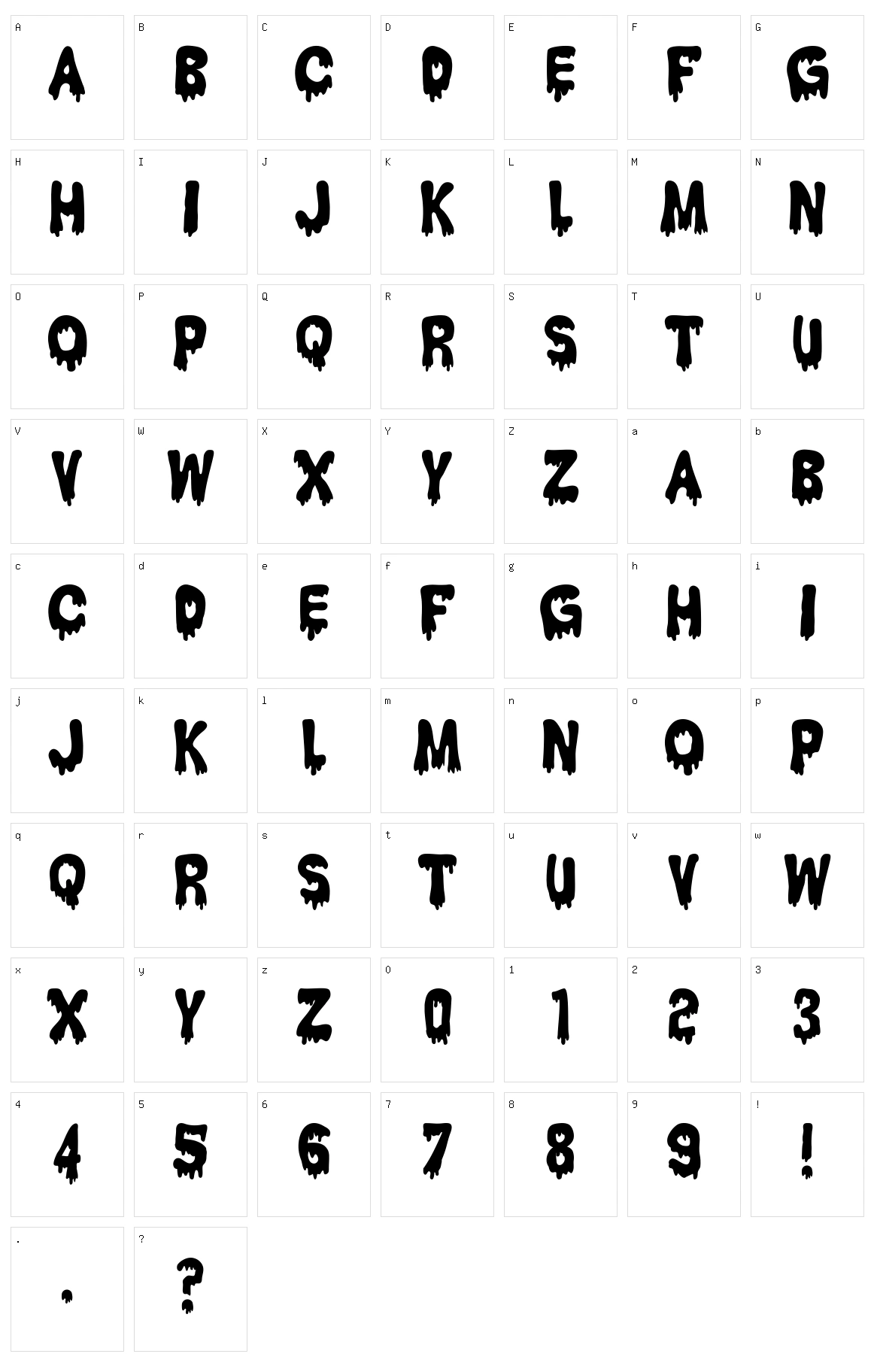
The free font Hantu Kom Kom is carefully designed by Haslinda Adnan, showcasing a thoughtful balance of creativity and usability and falls under the Horror font style. When you download the ZIP file, it contains only 36.99 KB of font files, making it lightweight and quick to download. Please review the license details below to understand permitted usage and distribution rights. If license information is not available, we recommend using this font for personal projects only or contacting the author directly for commercial usage permissions.